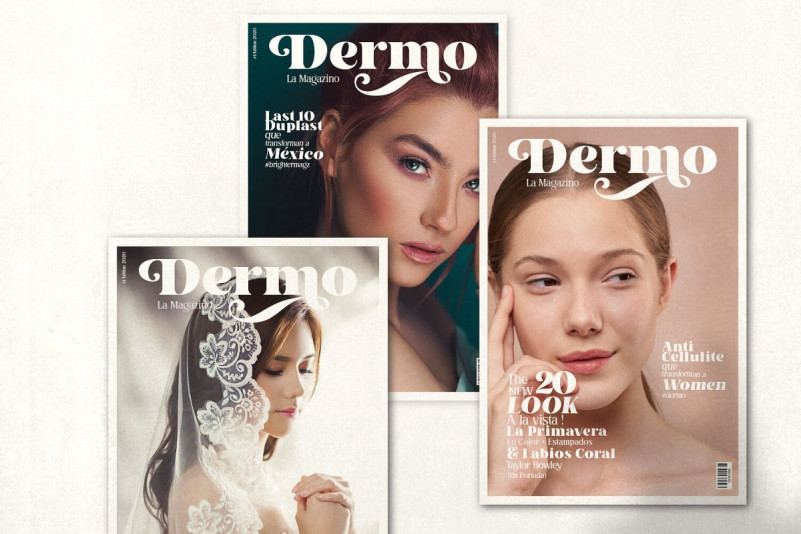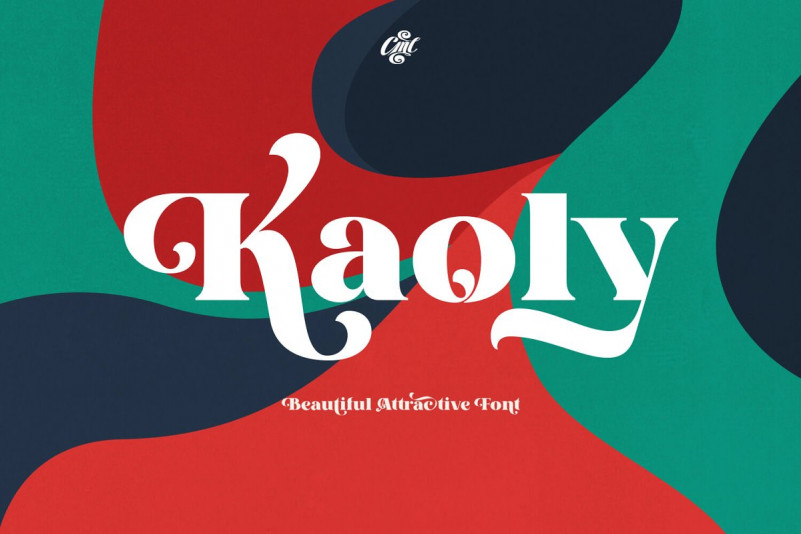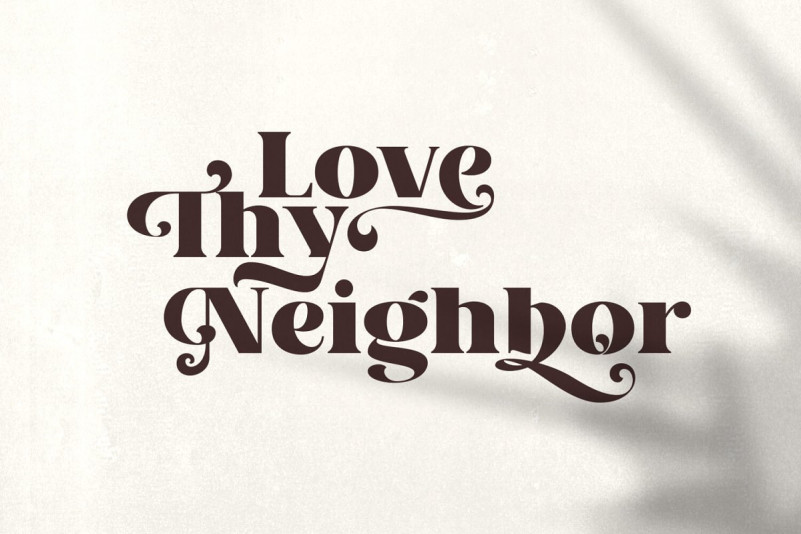
Kaoly Font
Kaoly Regular Unique bold serif with lot of unique and beautiful alternate characters that you can combine to get a beautiful final lettering with a nice and dynamic shapes just in seconds! Thanks for the unique alternates!